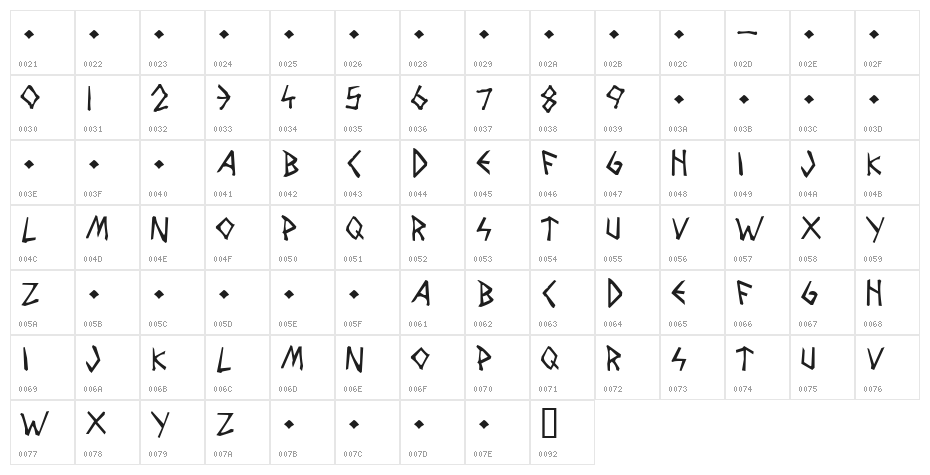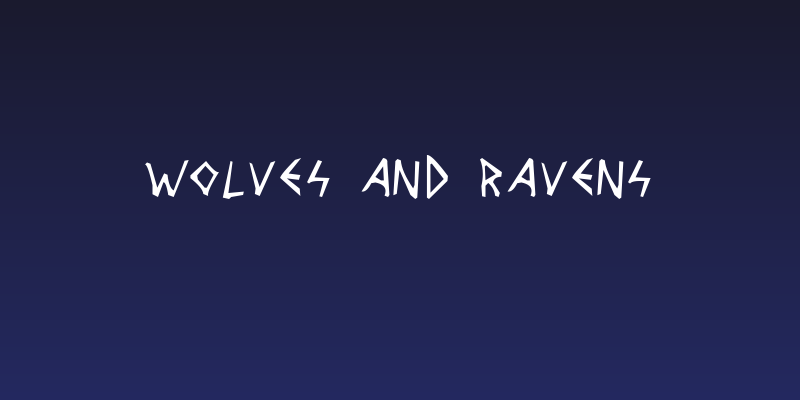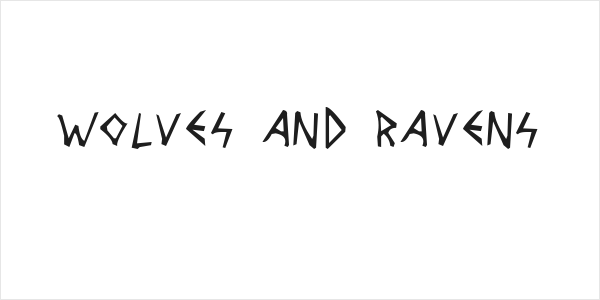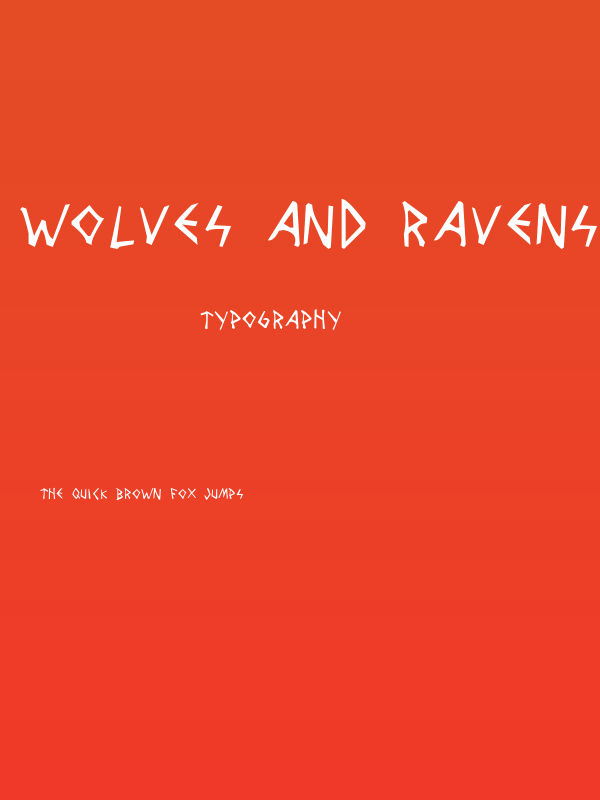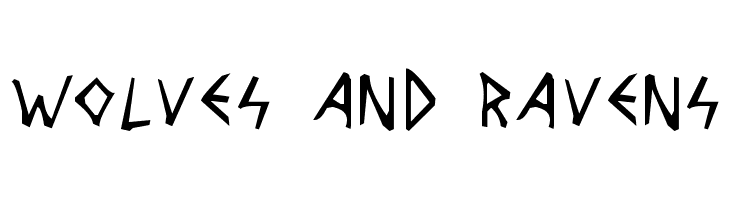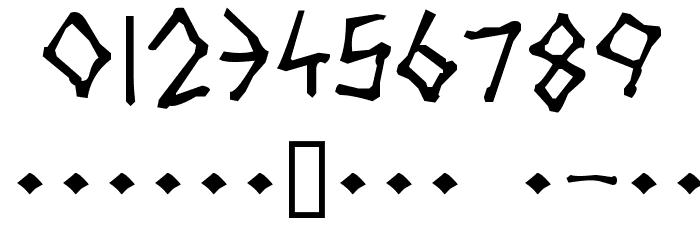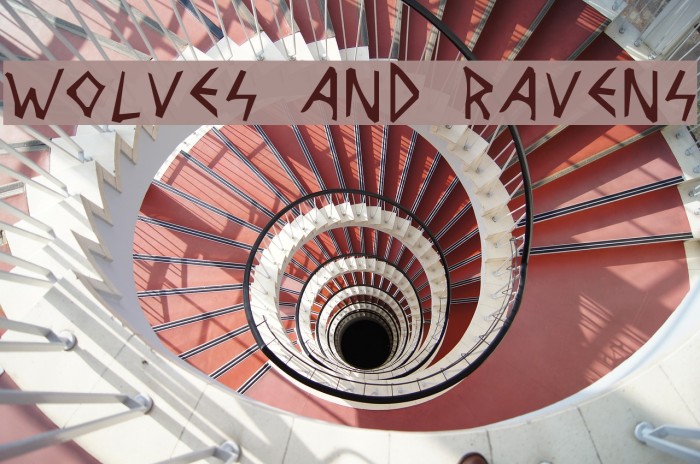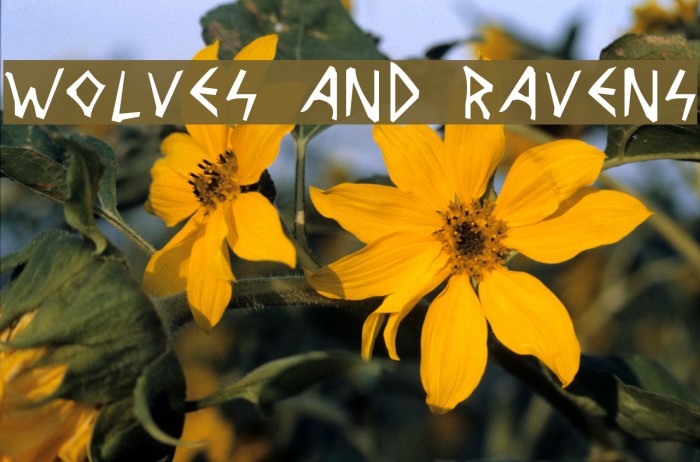
Wolves and Ravens Font
| Anwendungsfall | Logos, Headlines, Posters |
| Vorgeschlagene Projekte | Perfect for fantasy-themed designs, video game graphics, book covers, or any project needing a mystical or ancient vibe. |